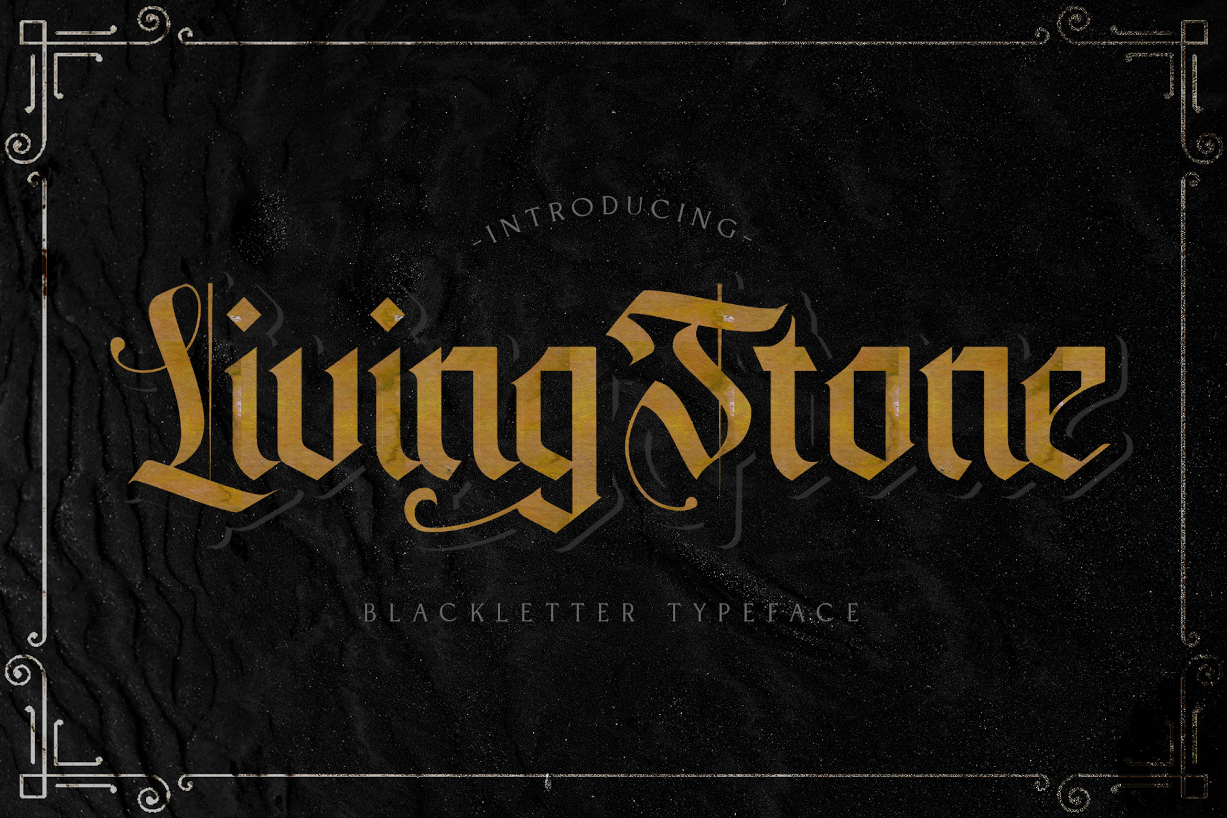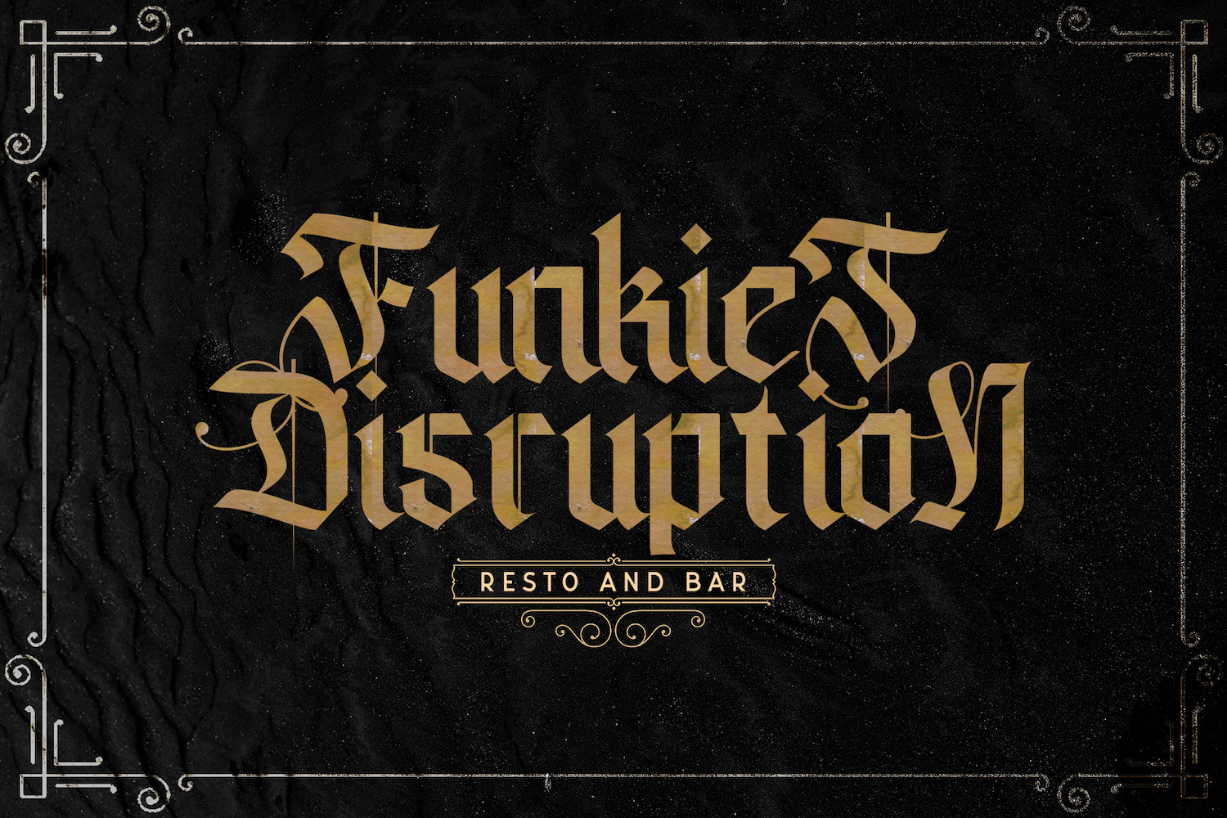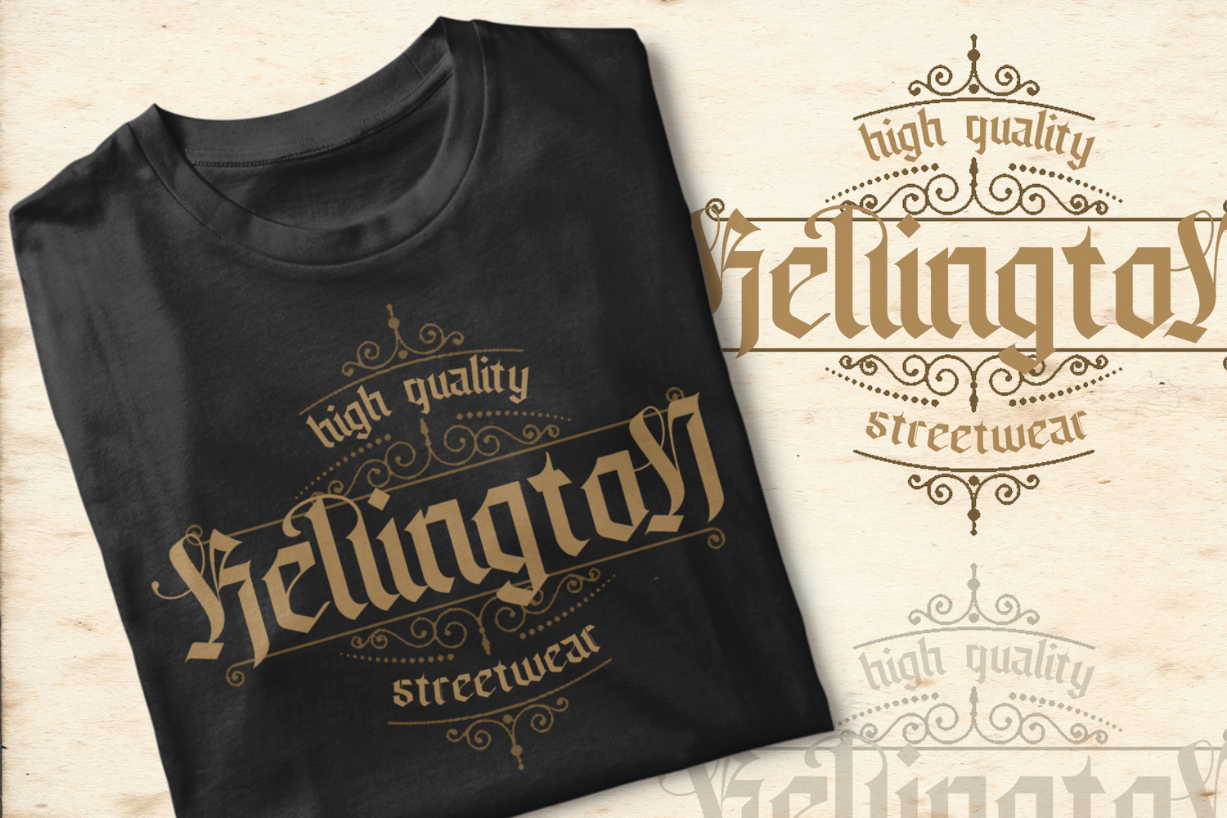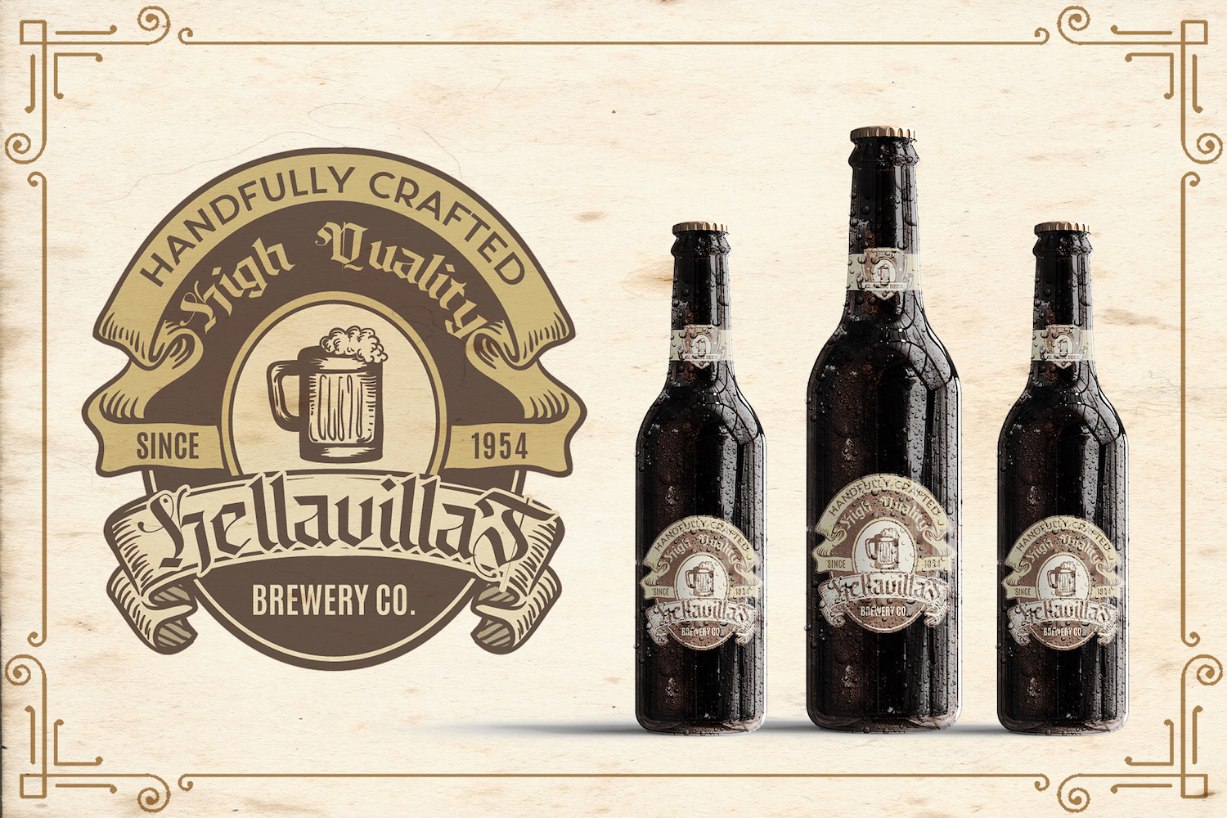
About Livingstone Font
Livingstone is an unique blackletter font. Add this authentic blackletter font to your creative ideas and notice how it makes them stand out!